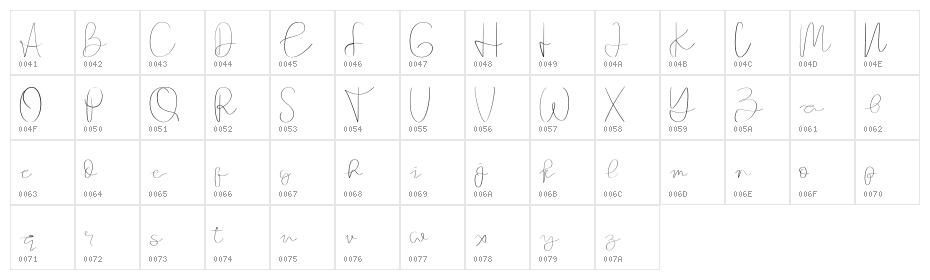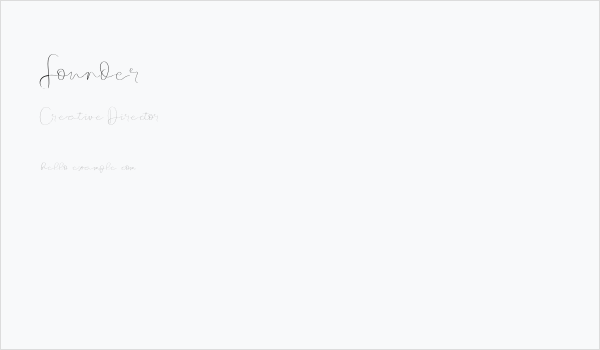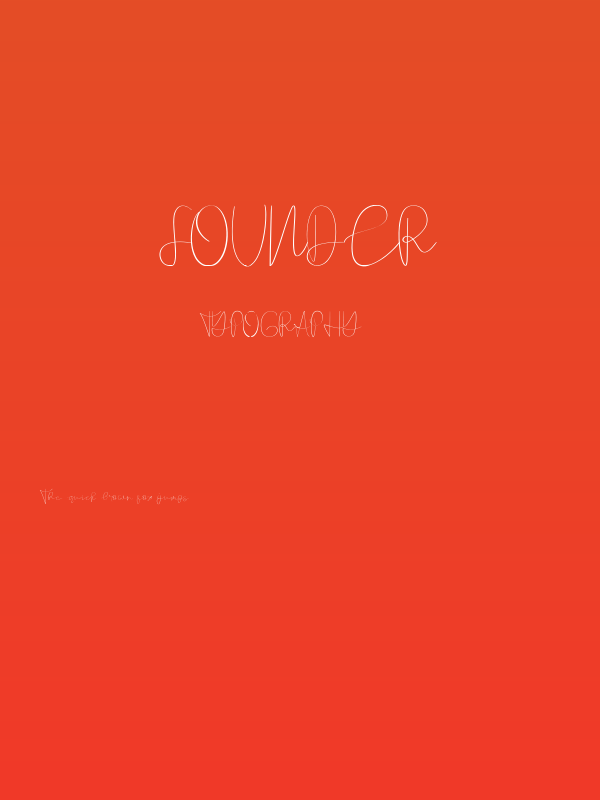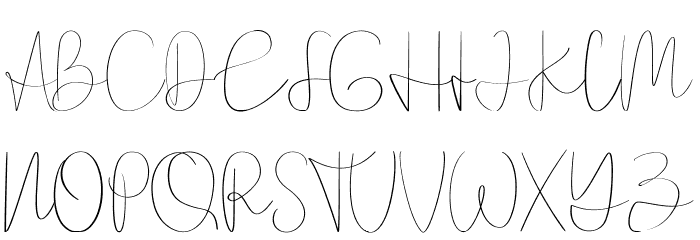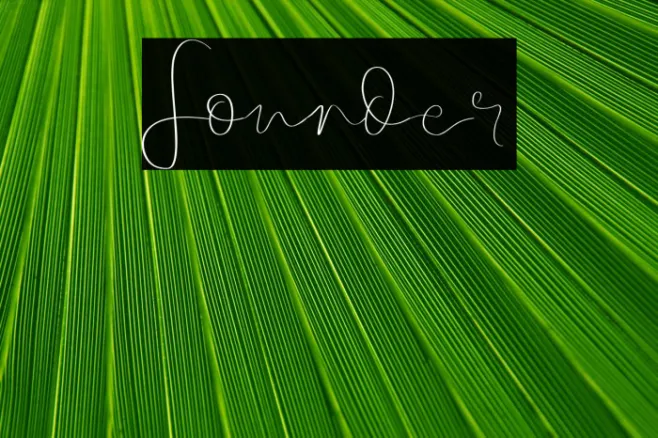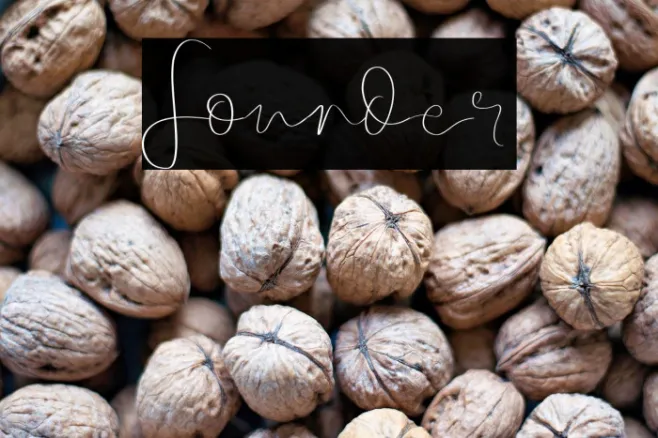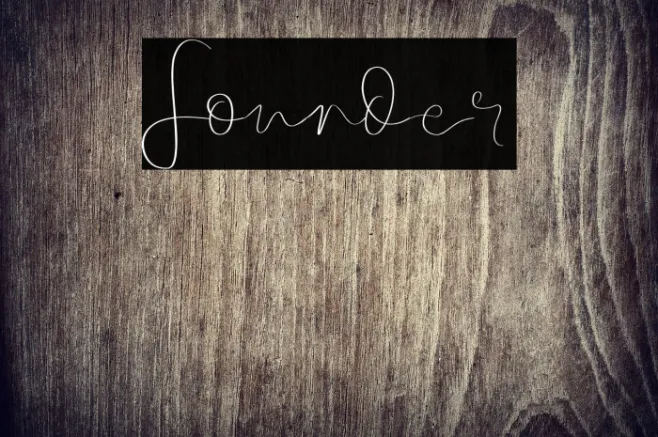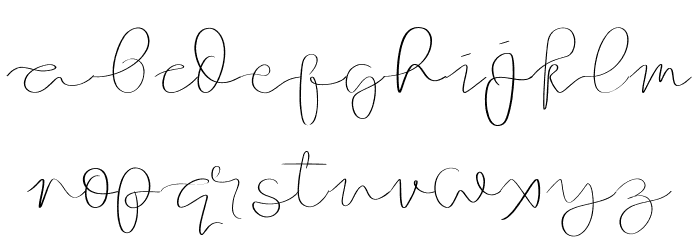
Founder Font
Founder Description
This font features an elegant and flowing script style, characterized by its continuous, looping strokes that create a sense of fluidity and grace. The letters are interconnected, giving it a handwritten appearance that is both sophisticated and approachable. The uppercase and lowercase letters maintain a consistent style, with the uppercase letters exhibiting more pronounced loops and curves. The numerals and special characters are designed to match the overall aesthetic, ensuring a cohesive look across all text elements. This font is ideal for projects that require a personal touch, such as invitations, greeting cards, and branding materials.